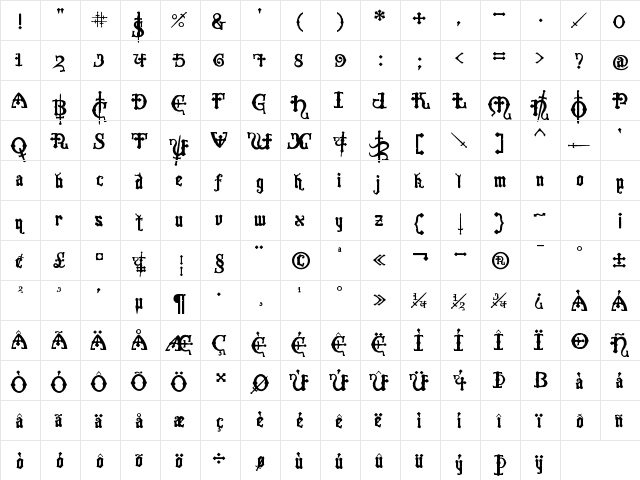
Crusades Font Preview
Crusades Crusades
Crusades Font Details
| Style | Crusades |
| Foundry | Fontsmith |
| Designer | Fontsmith - Scot Jenkins 1999 |
Design Context for Crusades Typeface
Crusades is a composed and adaptable typeface that performs quietly and consistently across a wide range of design contexts.